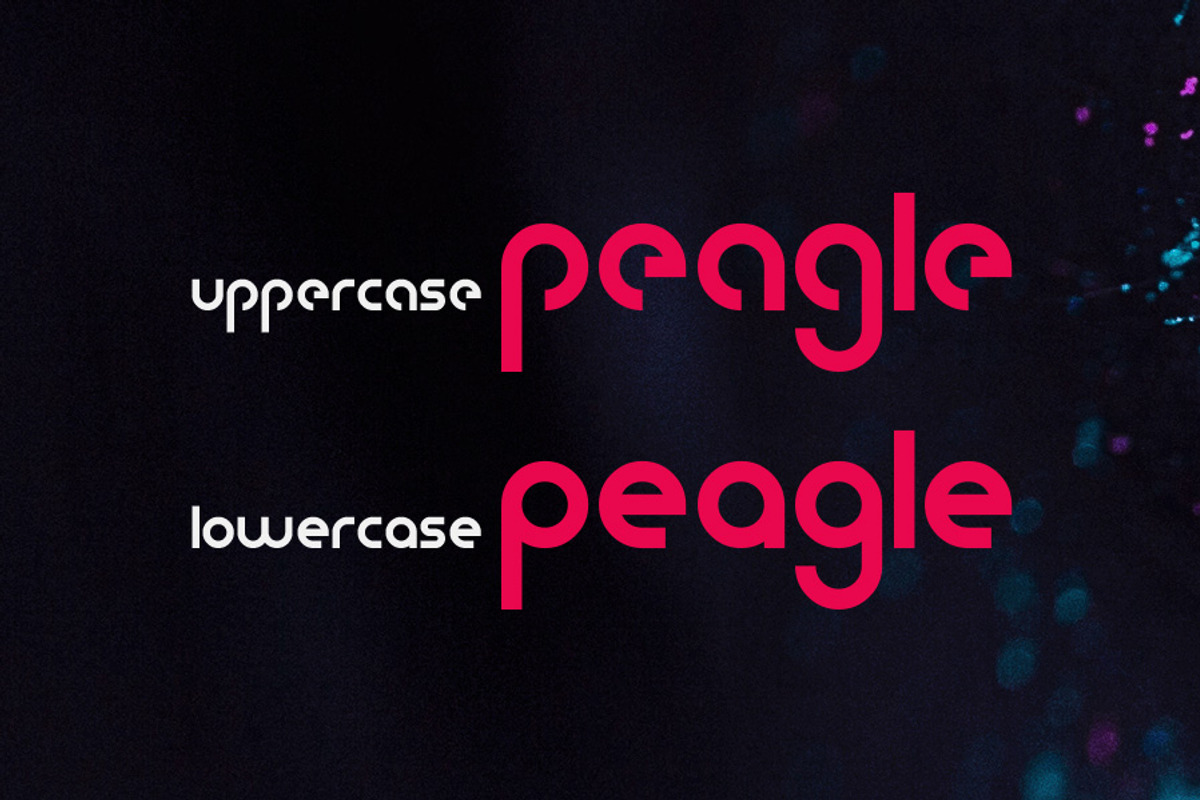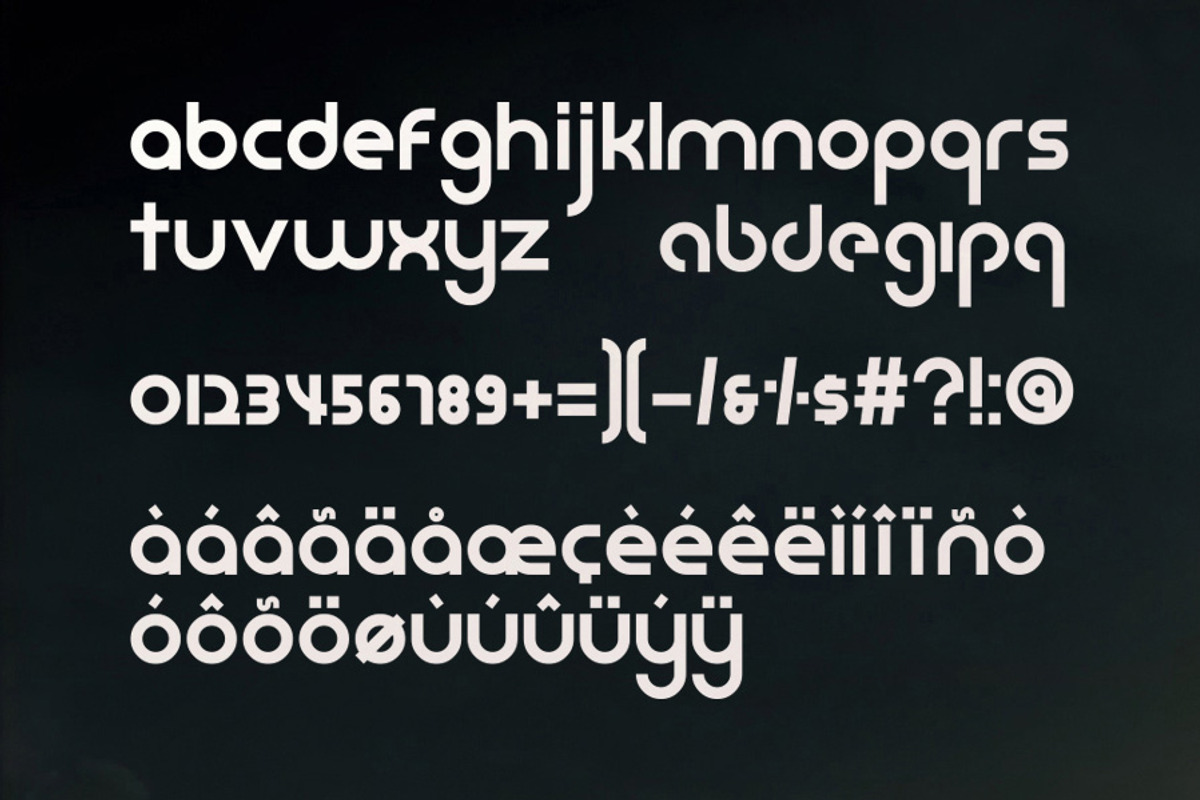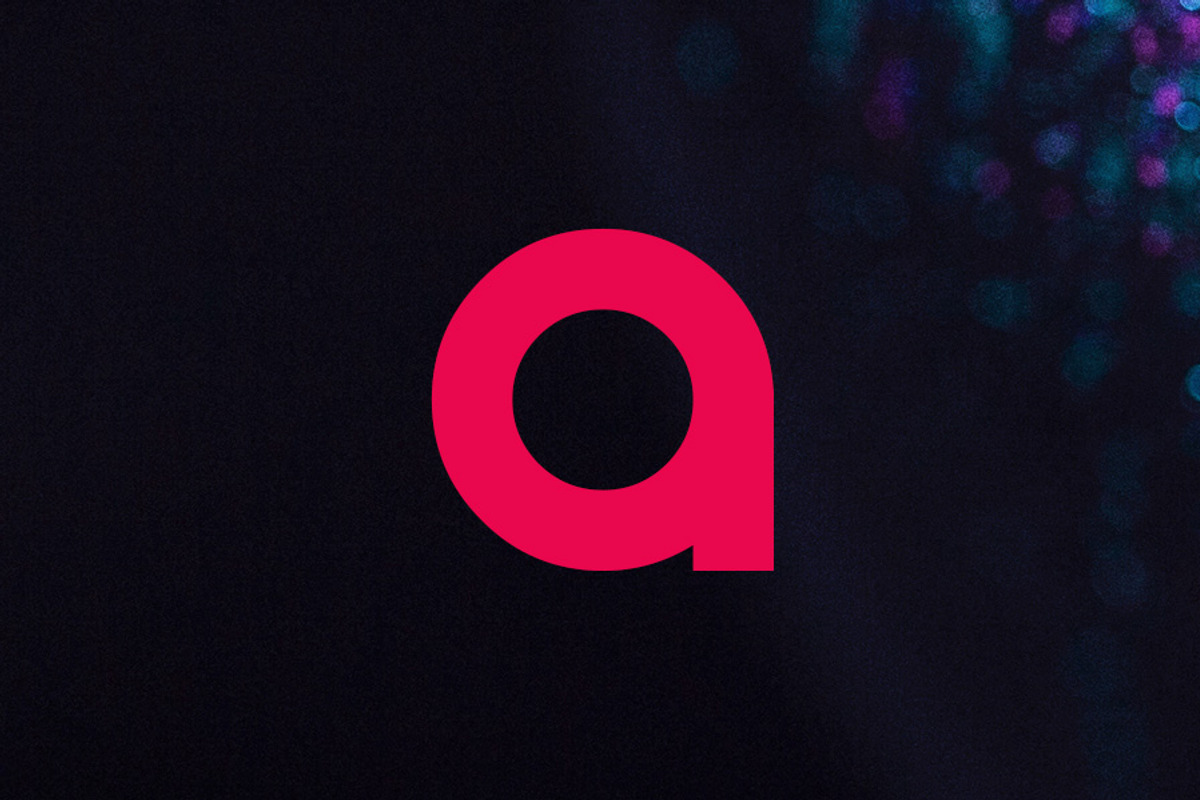
Omicron Typeface
Omicron Typeface by Tugcu Design Co. is a font selected for branding, posters, packaging, typography.
- It includes lowercase letters, alternates, numerals and punctuation.
- Omicron is a lowercase display typeface in 2 weights.
Why Omicron Typeface is worth a look
Omicron Typeface by Tugcu Design Co. fits naturally into Branding, posters, packaging, typography.